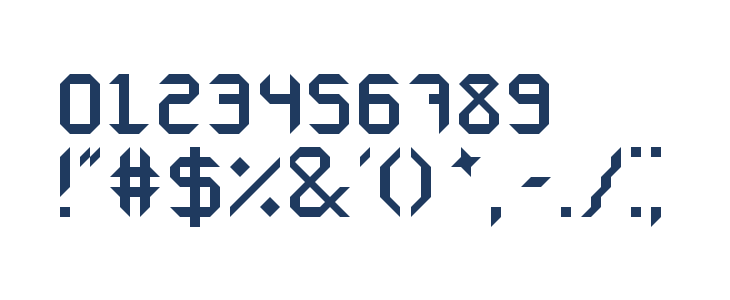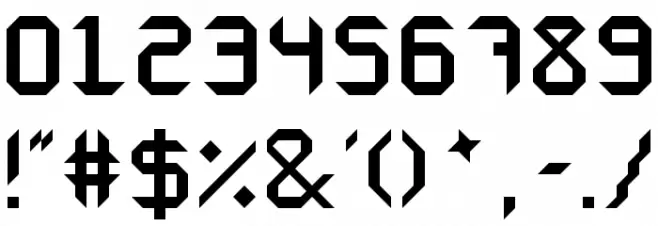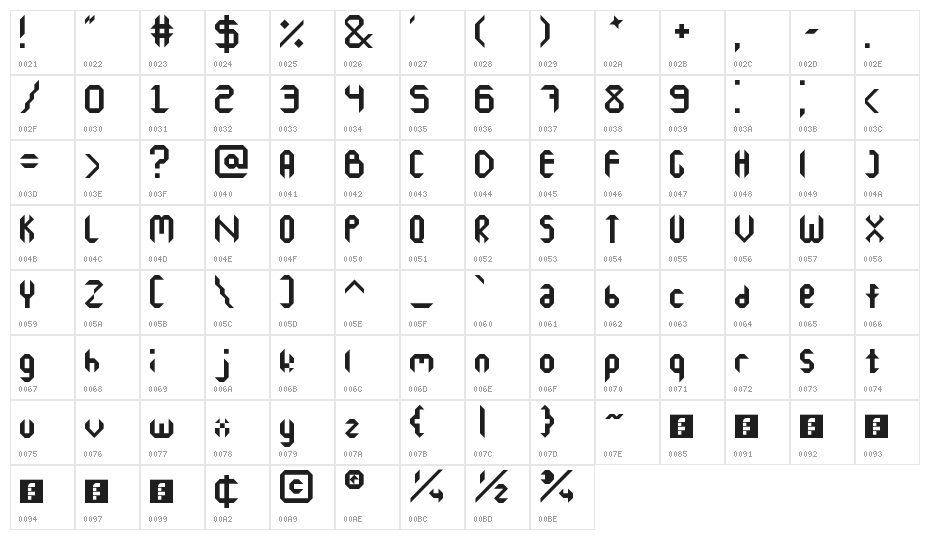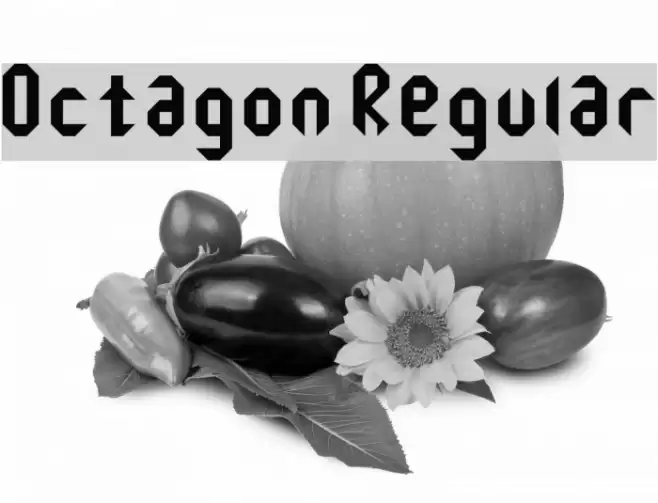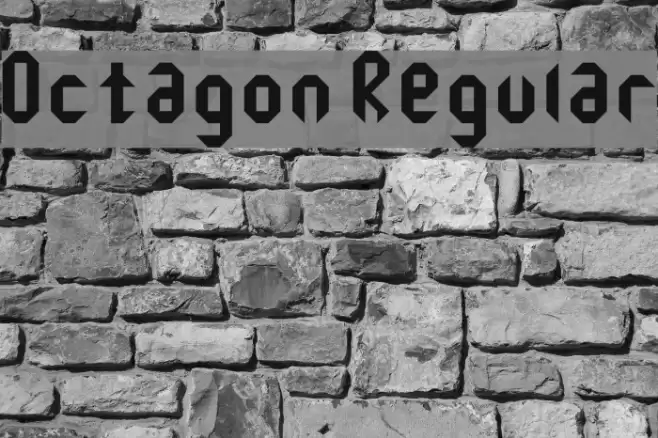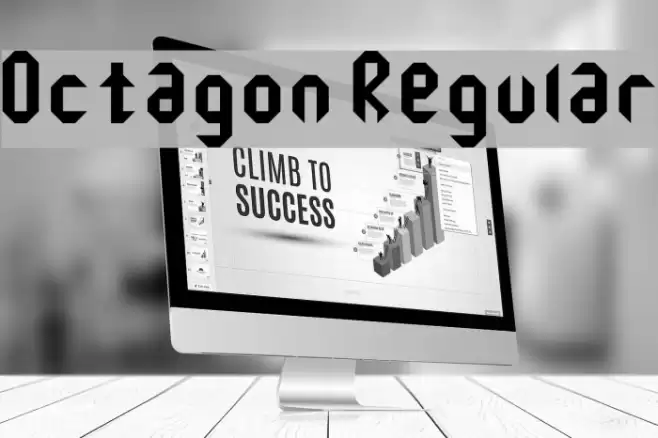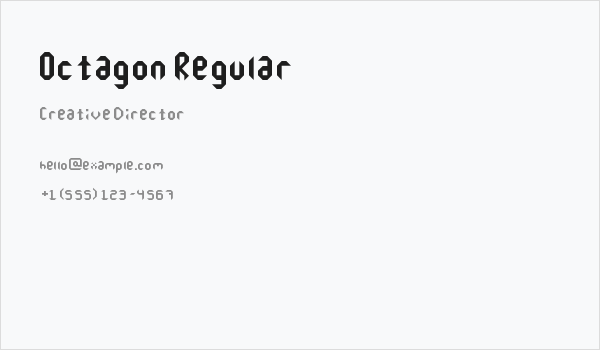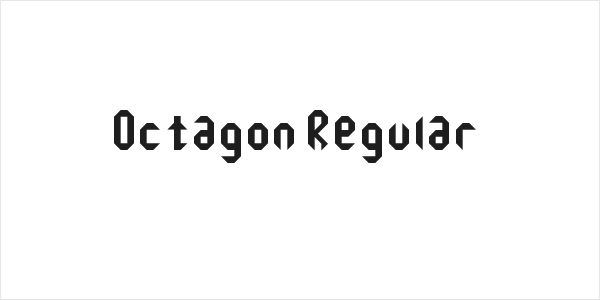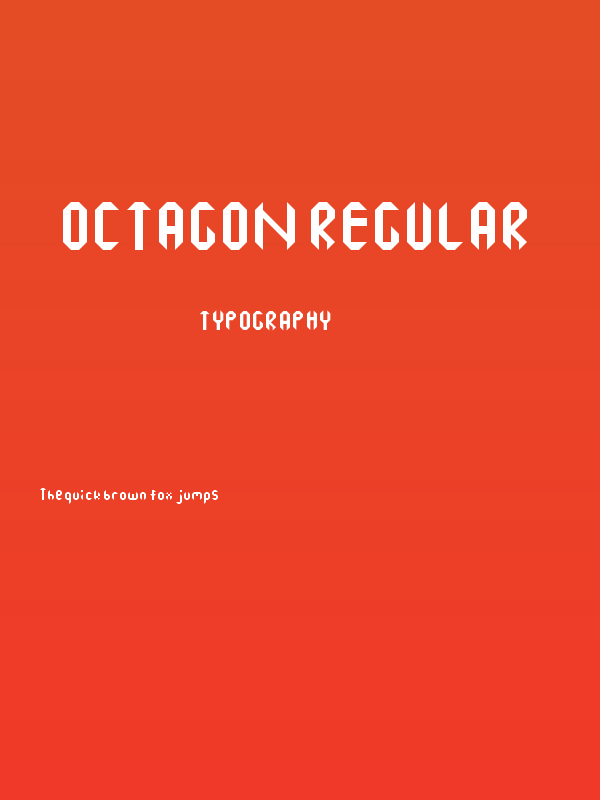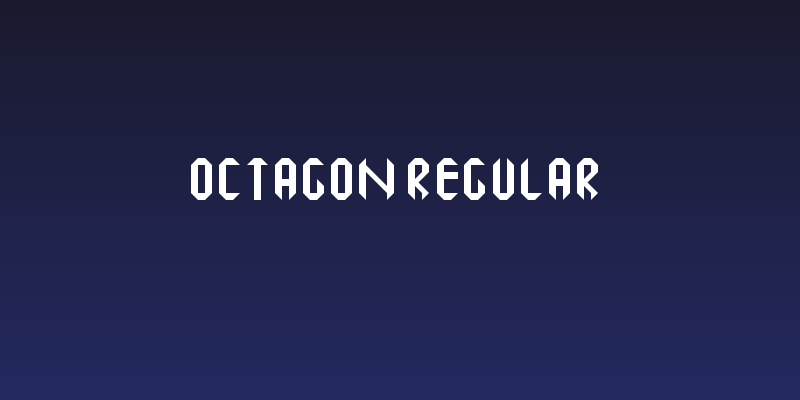
Octagon Regular Font
Octagon Regular Description
This font features a bold, geometric design with a distinct octagonal shape. Each character is crafted with sharp angles and straight lines, creating a futuristic and edgy appearance. The uppercase and lowercase letters maintain a consistent style, while the numerals and special characters complement the overall aesthetic. The font's unique structure makes it stand out, offering a modern and dynamic look that is both eye-catching and versatile.
| Proposed Projects | Ideal for branding, posters, video game graphics, and sci-fi themed projects. |